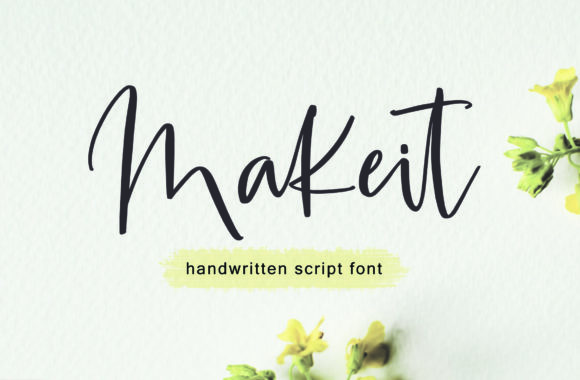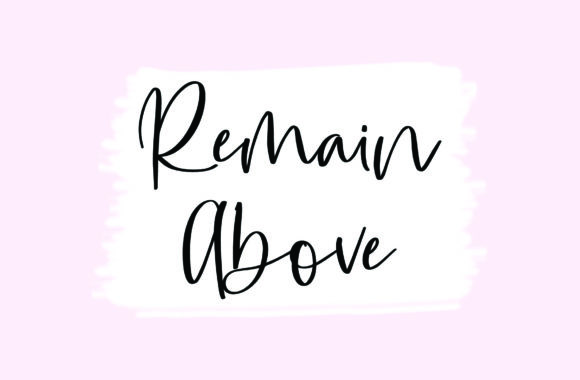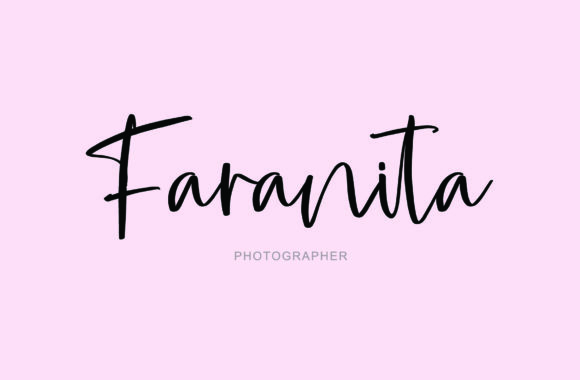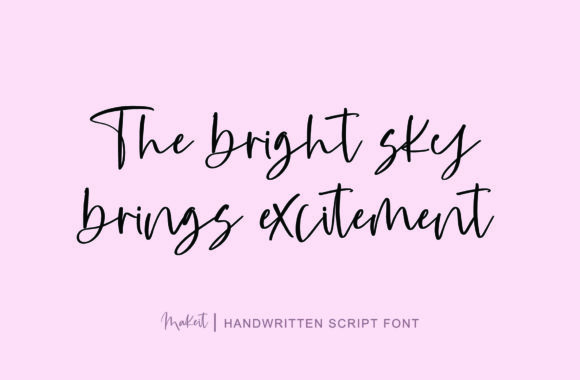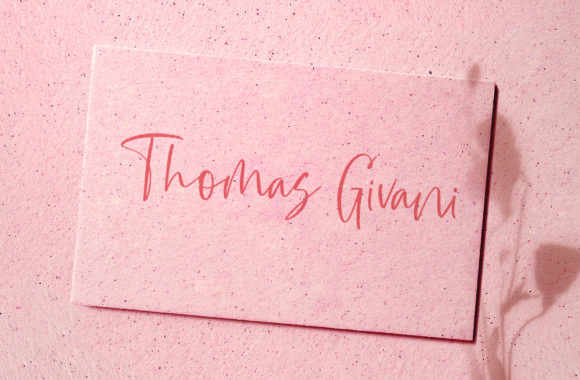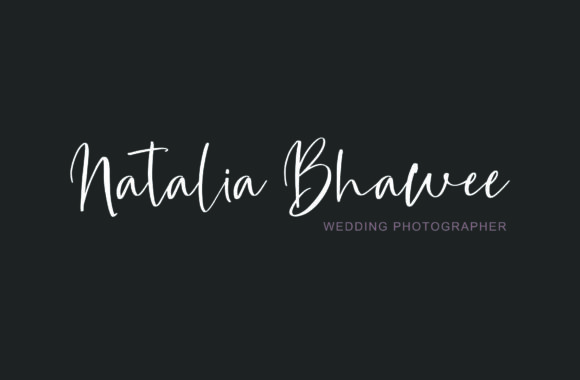
About Makeit Font
Makeit is a relaxed and adaptable script font. It has a modern yet whimsical style and it will undoubtedly immerse your designs into a magical world.